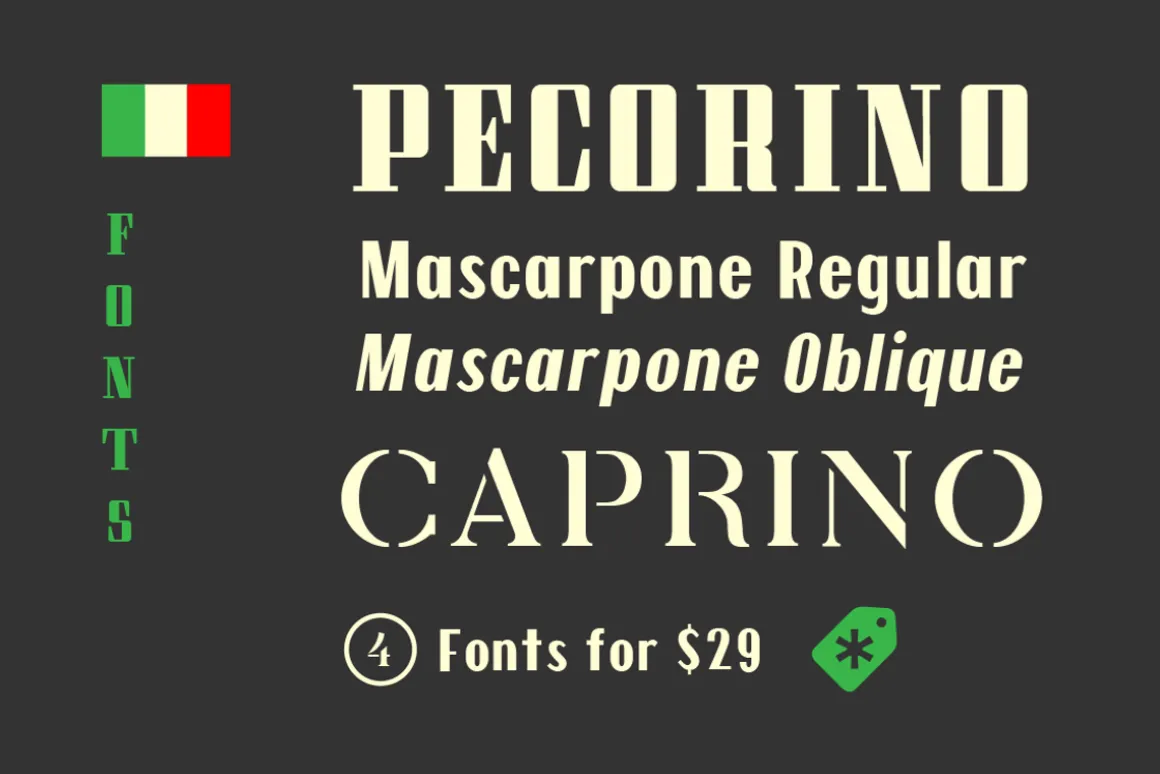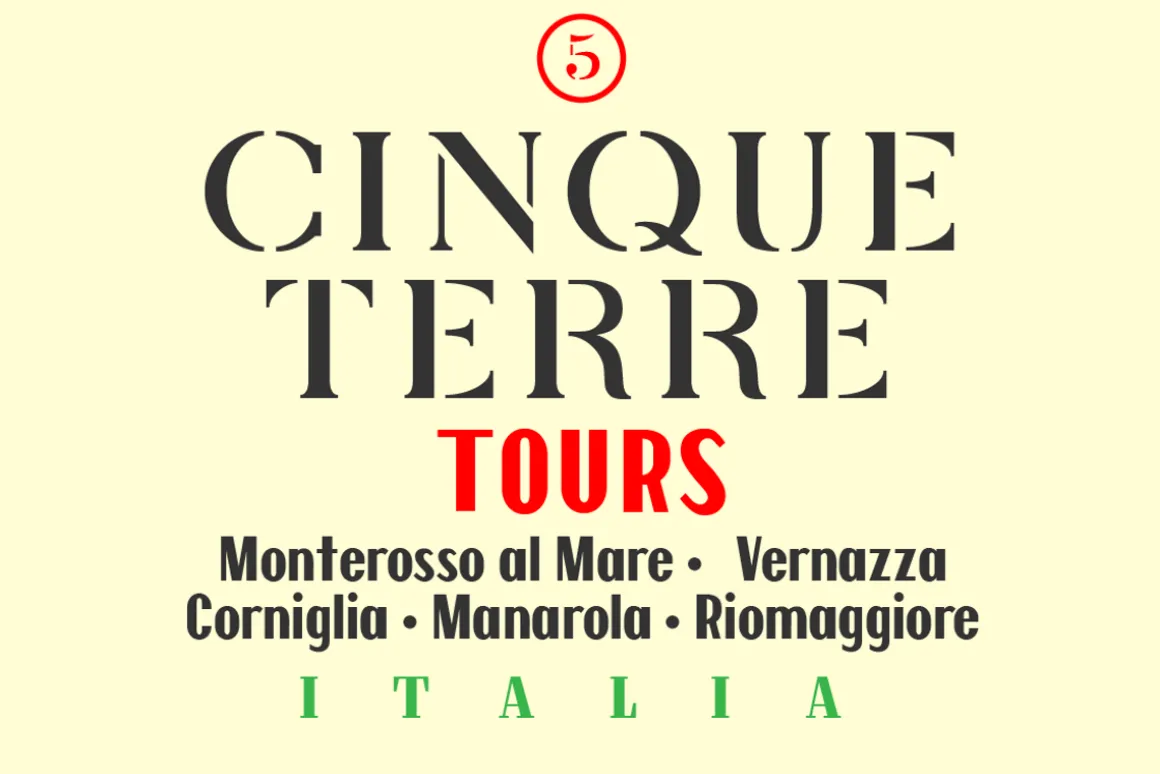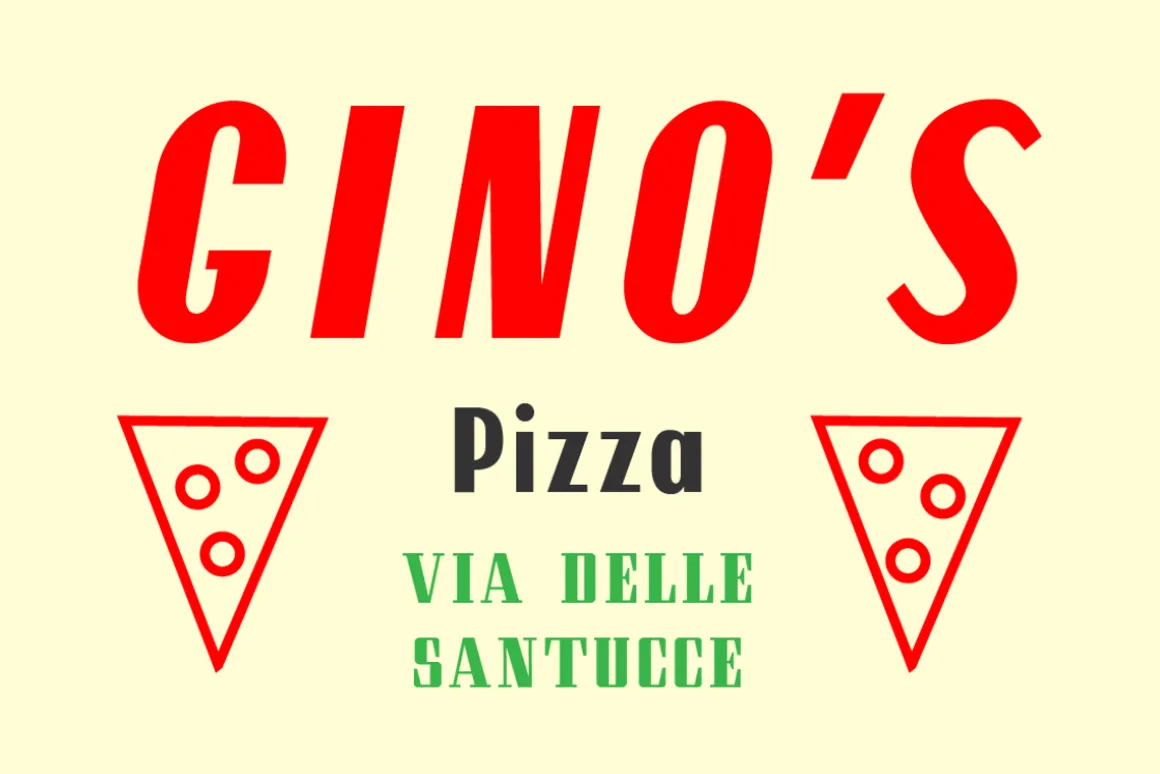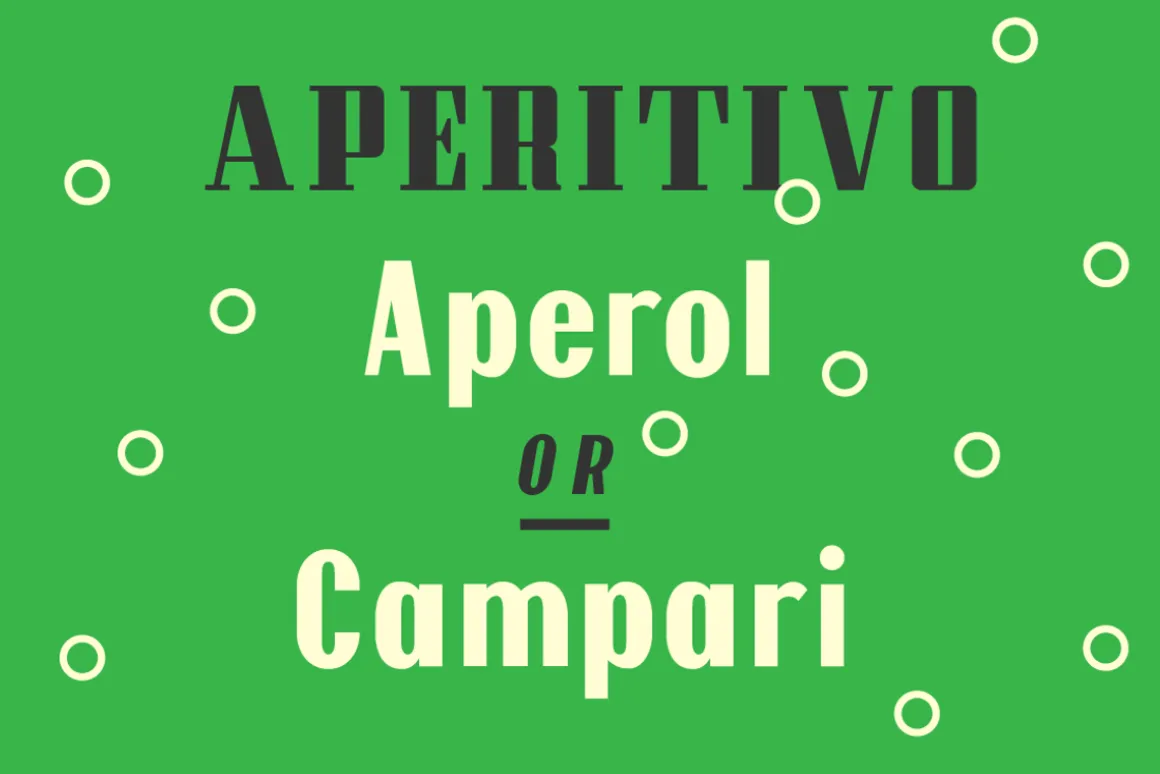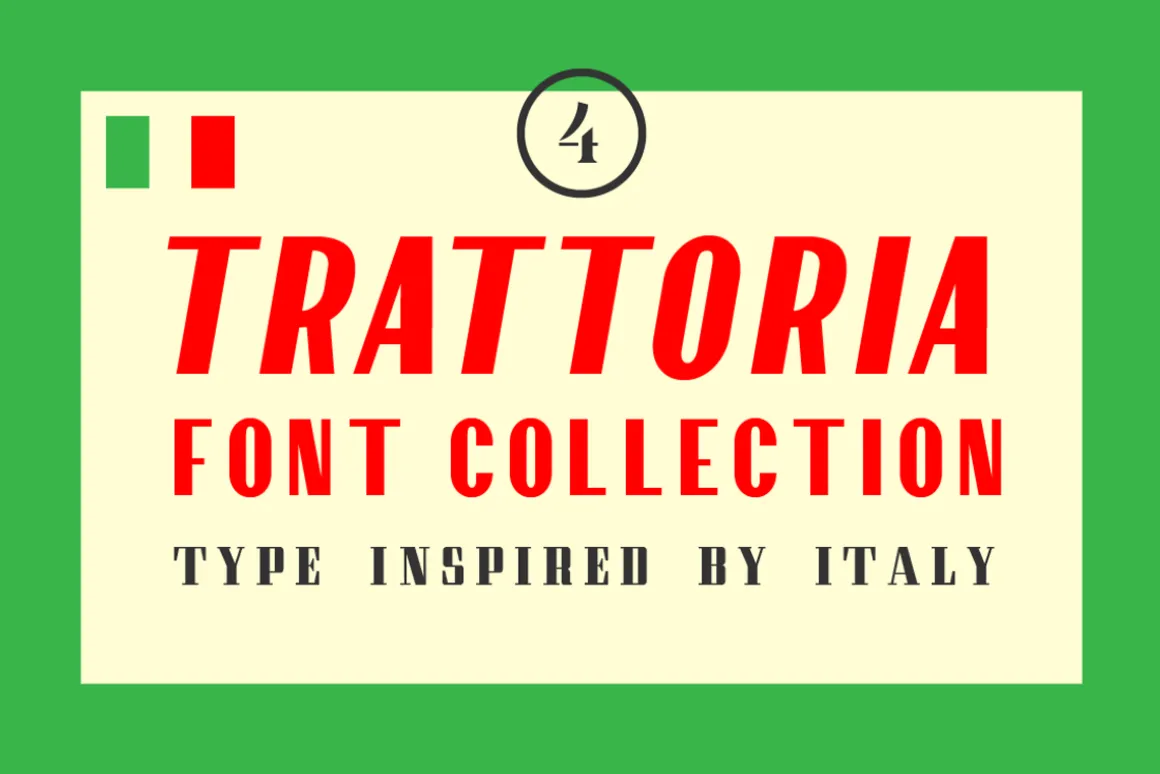
The Trattoria Font Collection is includes a high-contrast sans serif, an elegant stencil, and a modular serif — all inspired by Italian signage. Buon appetito!